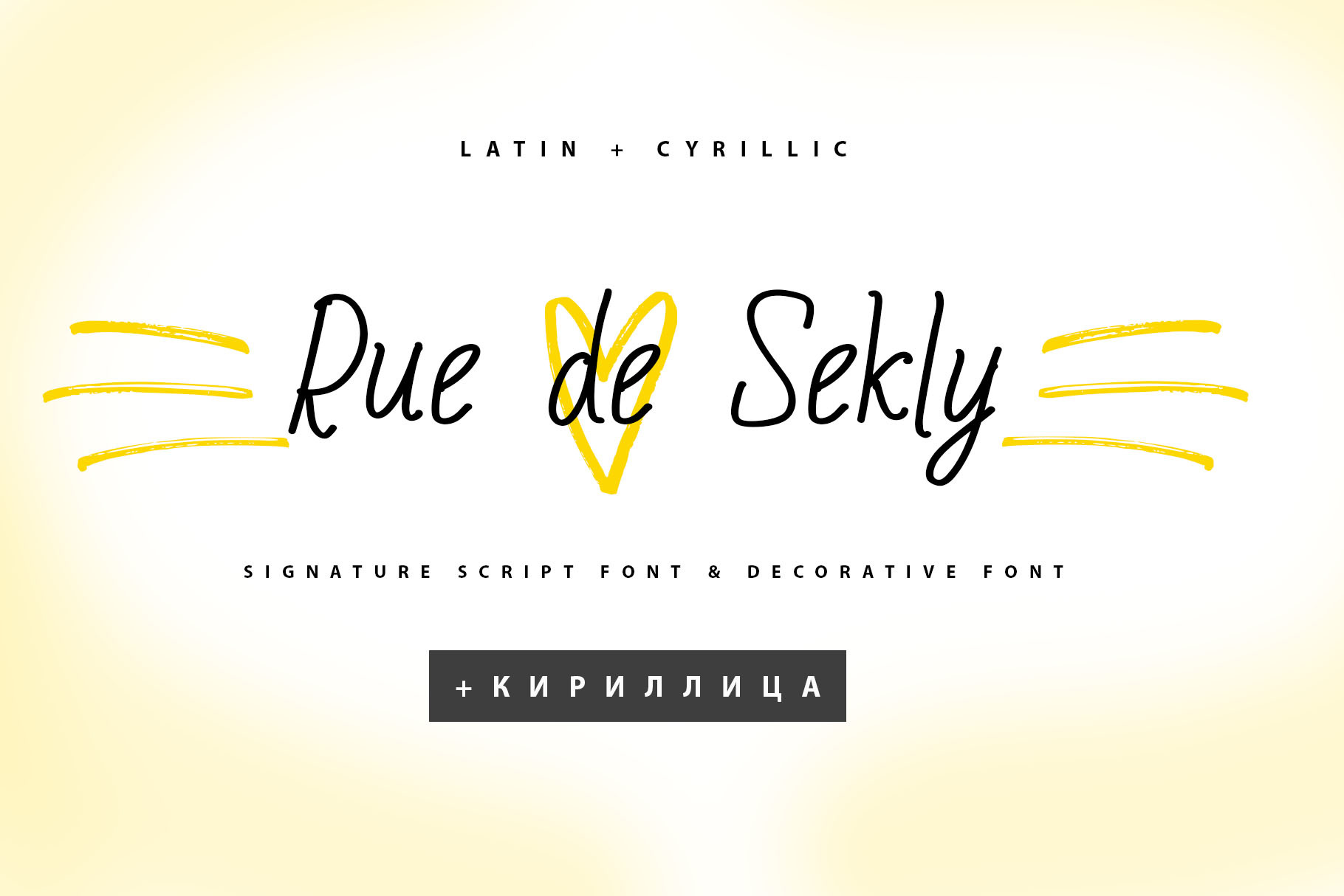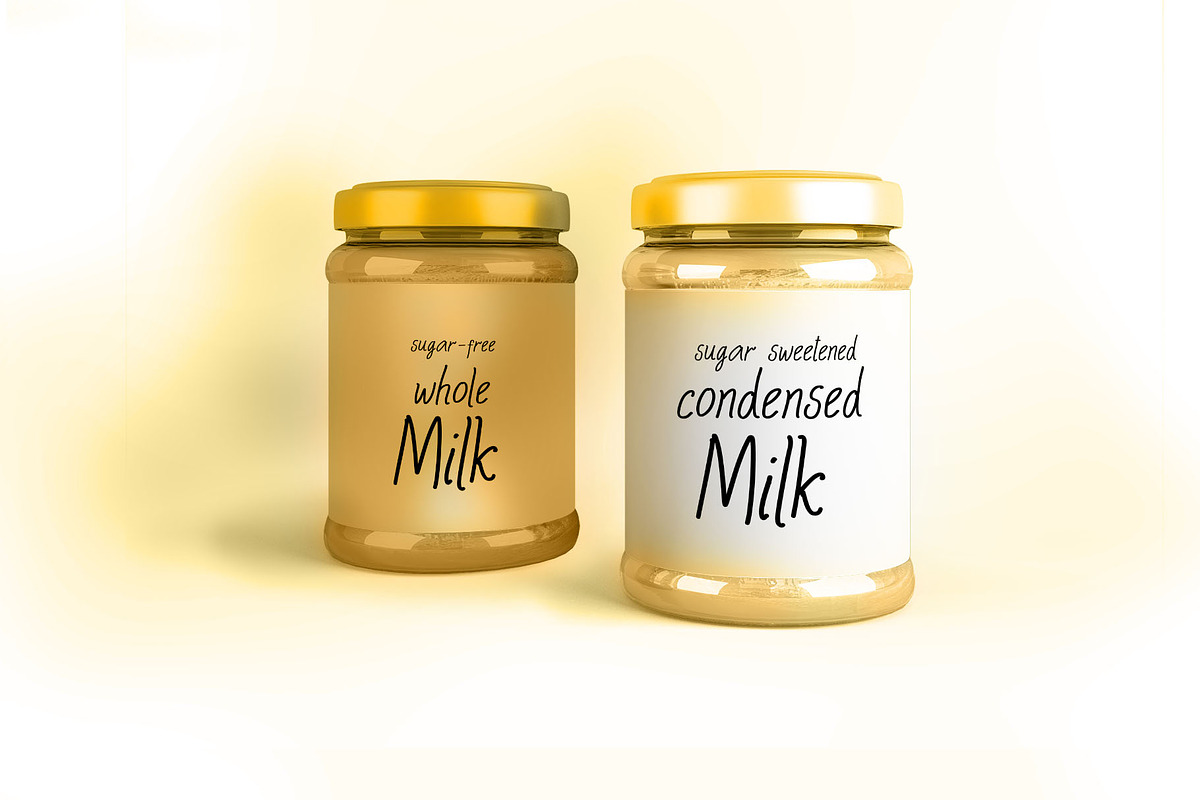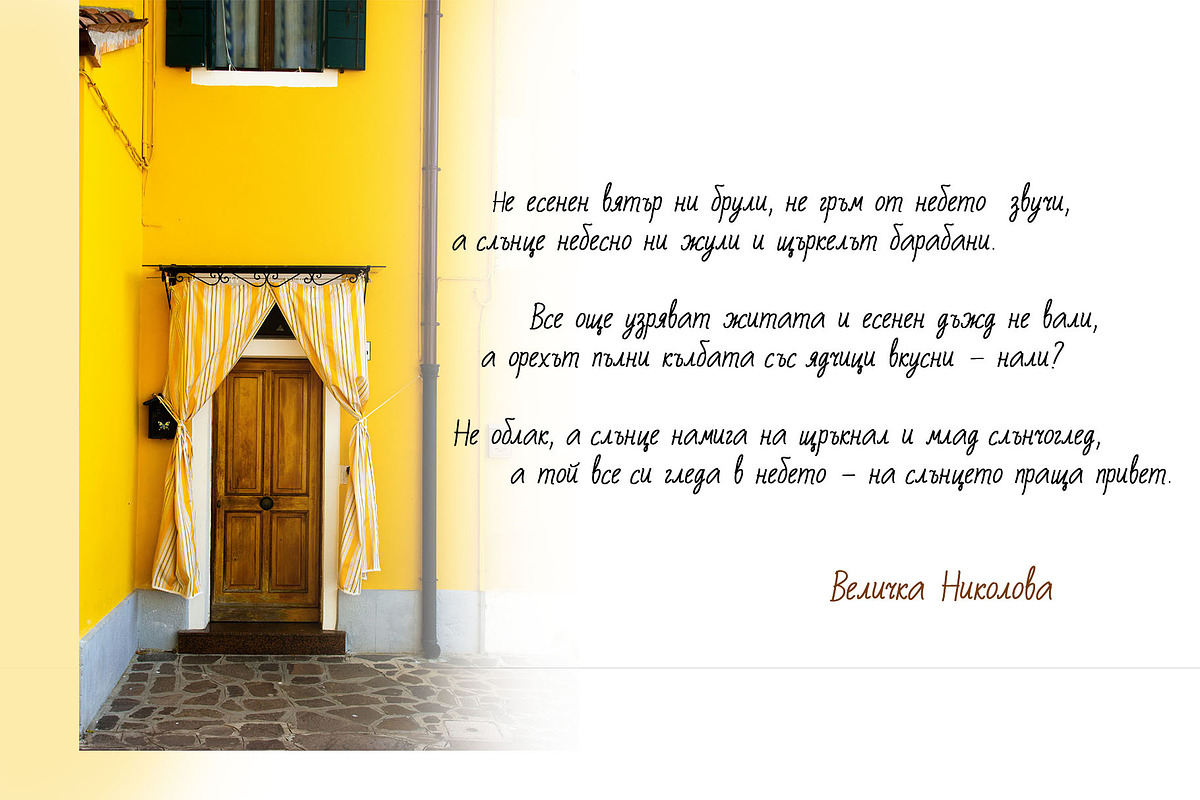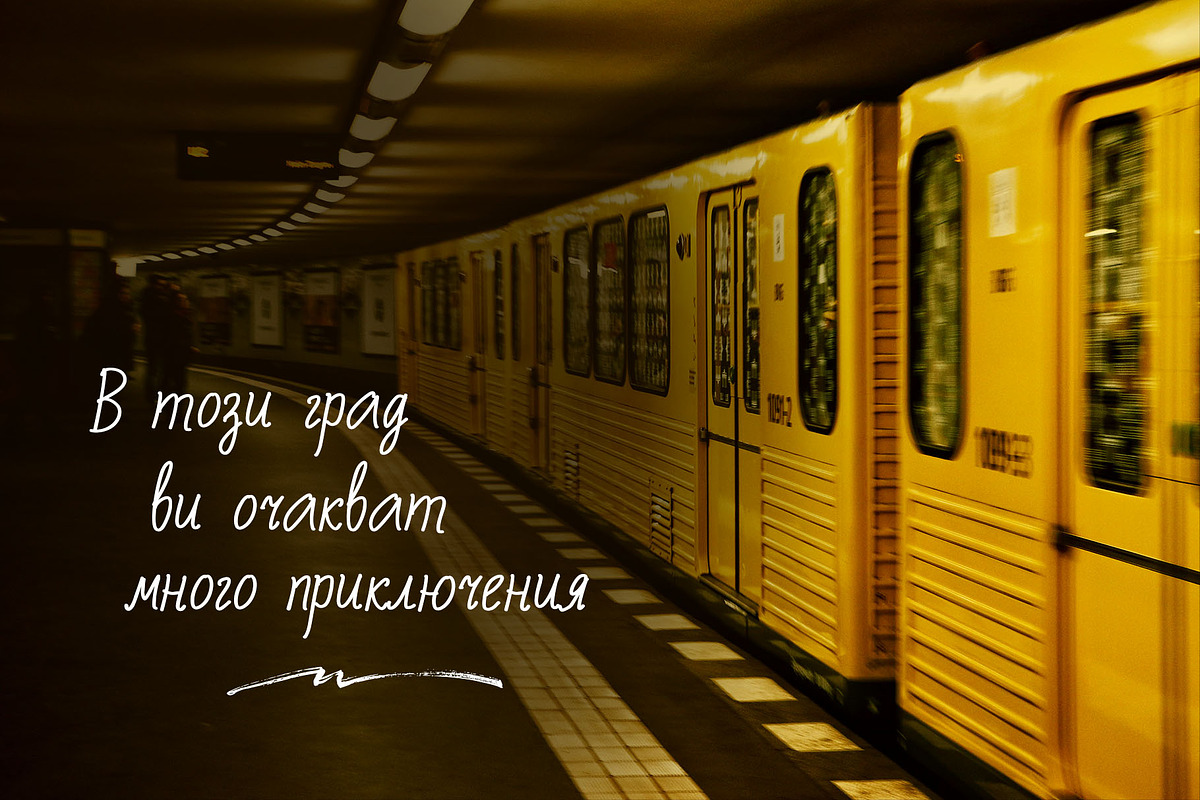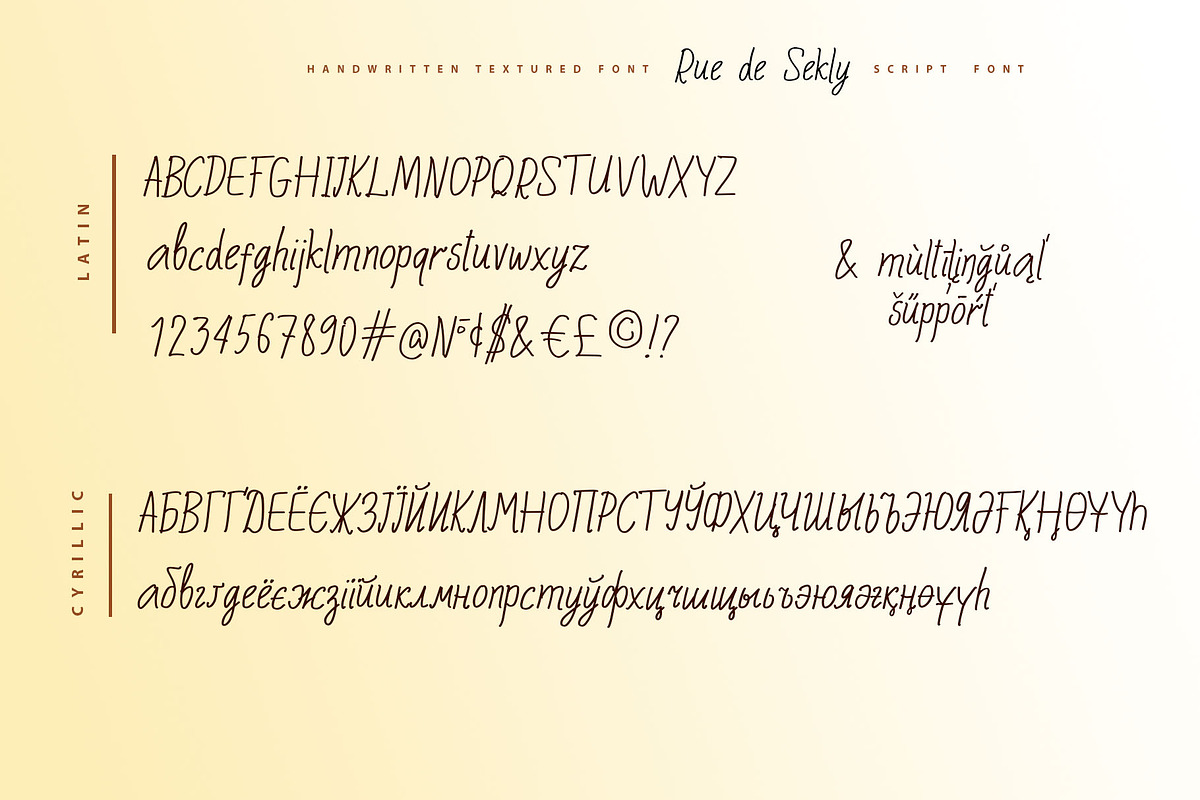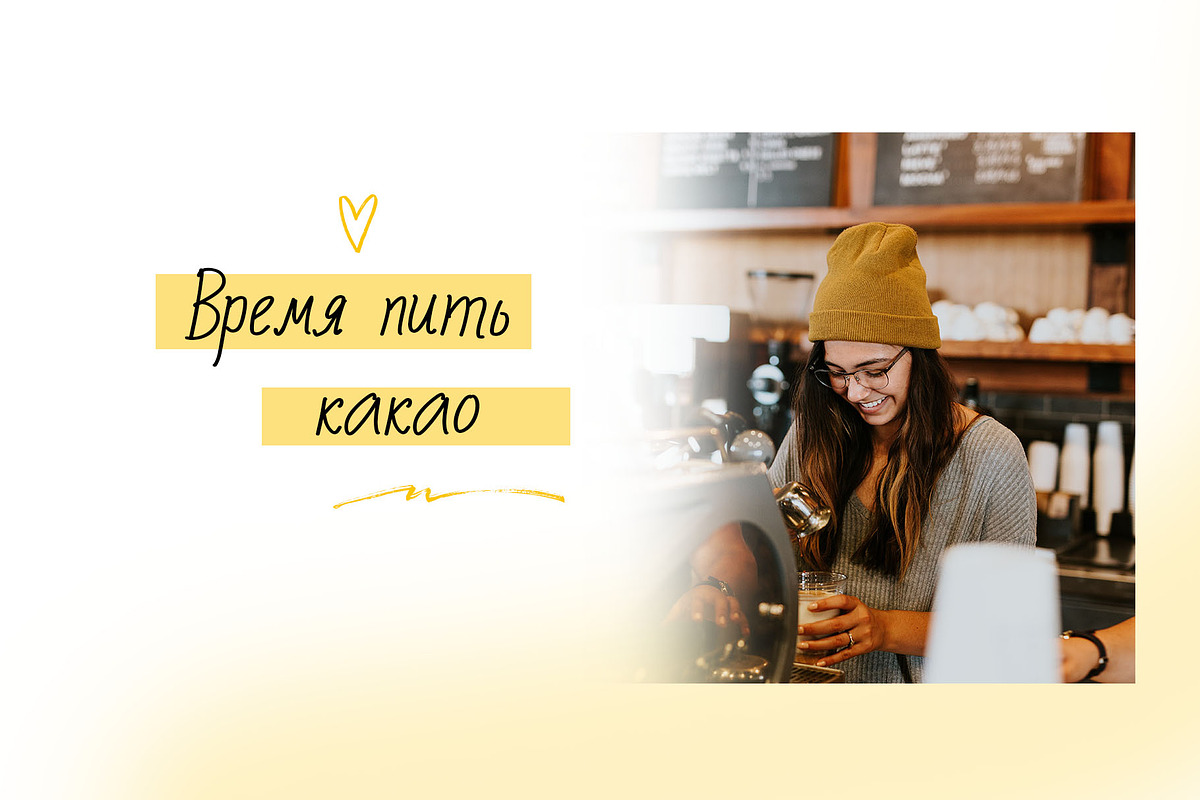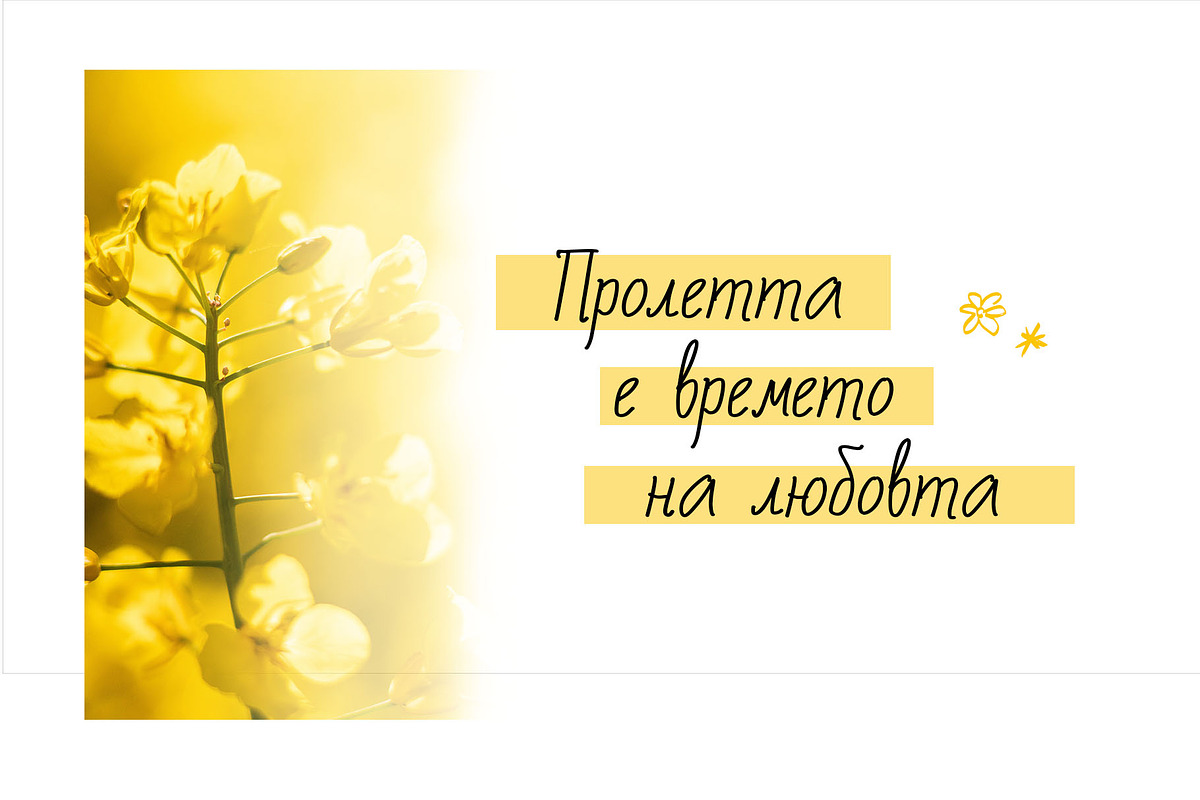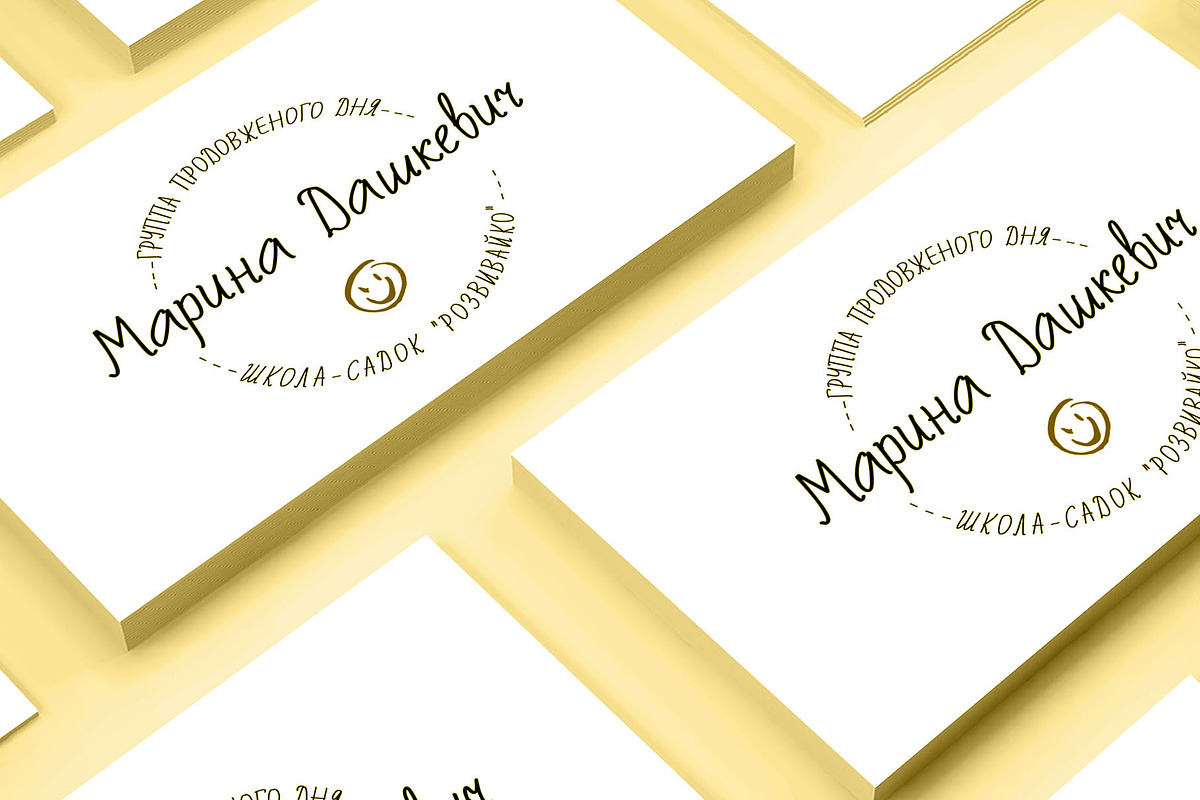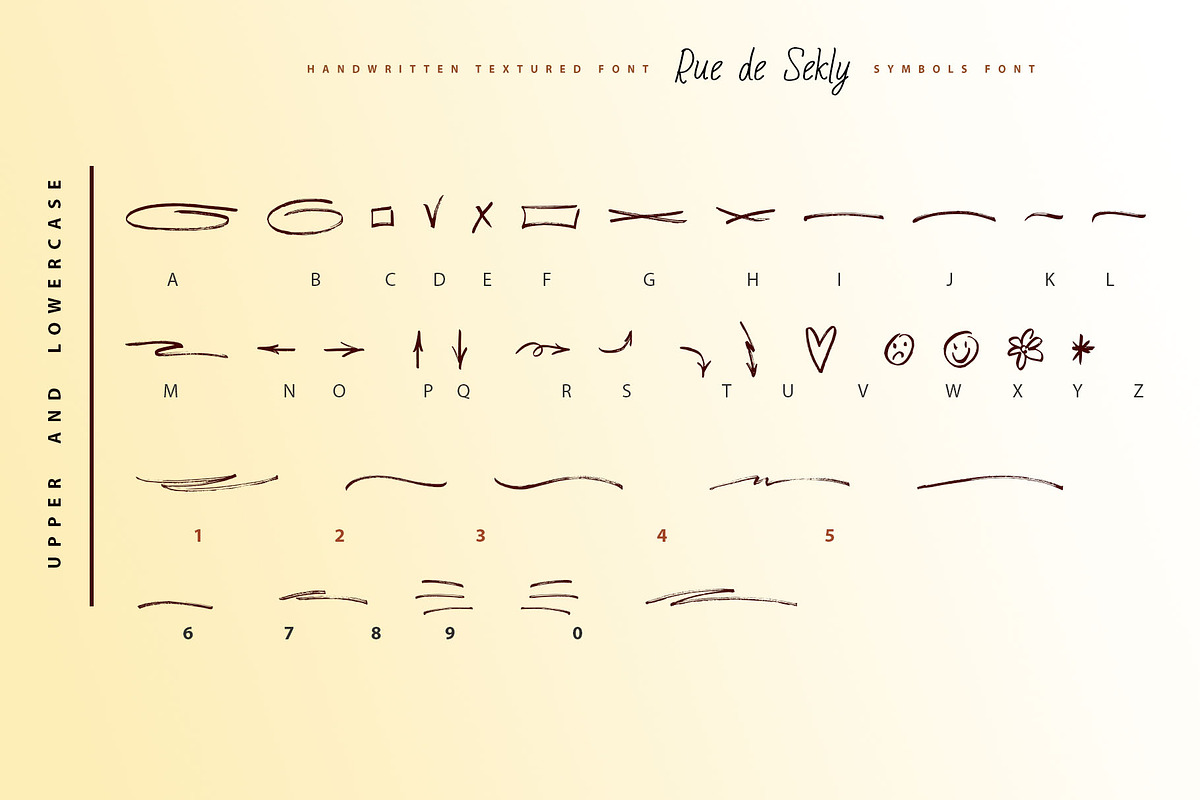
Rue de Sekly Cyrillic Script Font
Rue de Sekly playful script font Cyrillic is a pretty monoline kids font that will look gorgeous on all your designs, wedding stationery, love stories, branding materials, monoline logos, pretty teenage stickers, business and wedding cards, calligraphy Insta quotes, elegant fashion sketches, calligraphy love monograms and much more.
Rue de Sekly playful script font contains the Cyrillic glyphs too.
Multilingual Support for 33 languages: Latin glyphs for Afrikaans, Albanian, Basque, Bosnian, Catalan, Danish, Dutch, English, Estonian, Faroese, Filipino, Finnish, French, Galician, Indonesian, Irish, Italian, Malay, Norwegian Bokmål, Portuguese, Slovenian, Spanish, Swahili, Swedish, Turkish, Welsh, Zulu.
And Cyrillic glyphs support Ukrainian, Belorussian, Bulgarian, Russian, Mongolian and Kazakh languages.